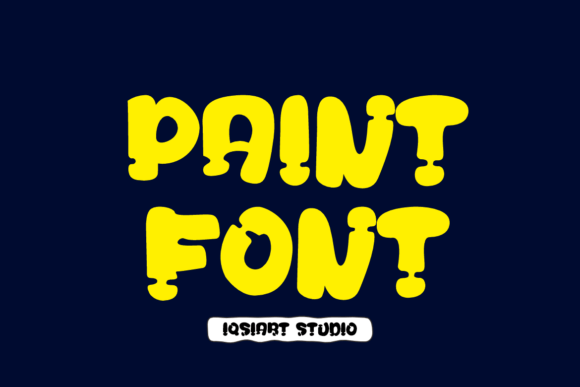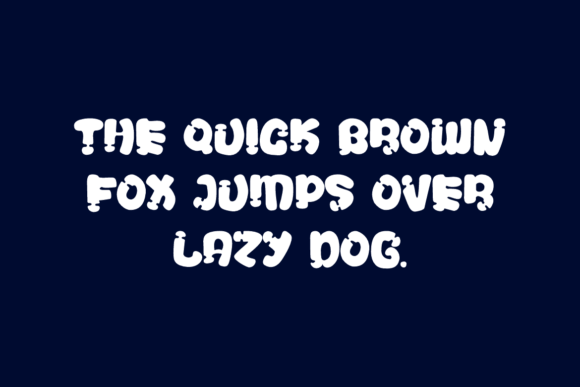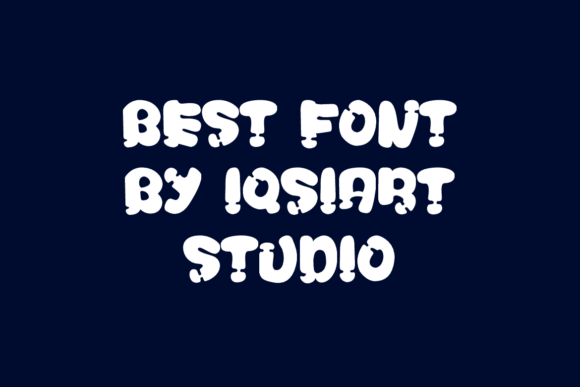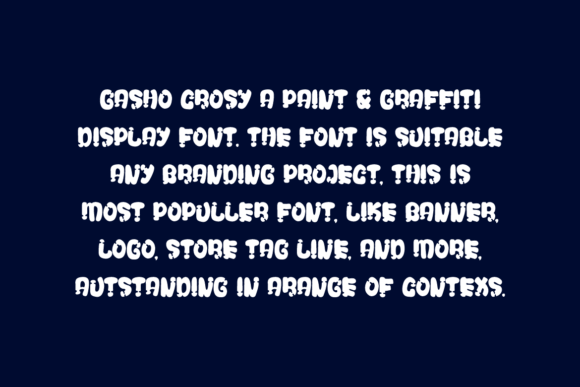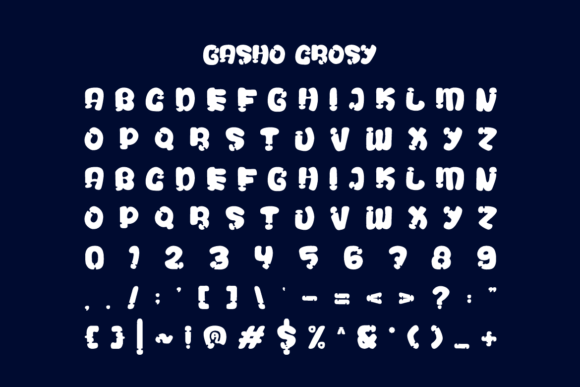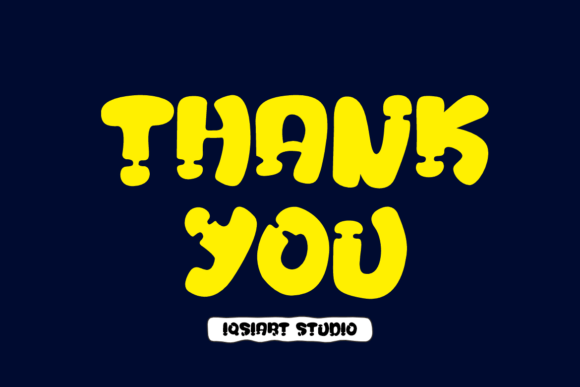
The Urban Edge: Unleashing the Power of Gasho Crosy Font
I’ll never forget the design project that pushed me to discover the Gasho Crosy Font. I was working on a streetwear branding campaign, and my client wanted a bold, eye-catching font that captured the raw energy of urban street art. After hours of searching, I stumbled upon Gasho Crosy, and it was love at first sight! ✨ With its chunky, paint-drip-inspired forms and playful curves, this font brought an instant impact to the design. In this article, I’ll share my experience with Gasho Crosy, its features, and how to make the most of it in your designs.
- ✨ Bold and attention-grabbing: Gasho Crosy is perfect for making a statement in streetwear branding, hip-hop event posters, and creative youth campaigns.
- ✅ Unique and authentic: The font’s urban attitude and modern twist make it stand out from more generic bold fonts.
- 💥 High-energy vibe: Gasho Crosy injects a burst of energy into any design, making it perfect for creative projects.
While Gasho Crosy is an amazing font, there are a few things to keep in mind: ⚠️ Legibility at small sizes: Due to its bold and chunky nature, Gasho Crosy may not be the best choice for body text or small font sizes. 🤔 Limited versatility: While the font is great for bold statements, it may not be suitable for more elegant or sophisticated designs.
The story behind Gasho Crosy is one of creative passion and urban inspiration. According to its designers, the font was born out of a love for street art and graffiti. They wanted to create a font that captured the raw energy and attitude of urban culture, while also being modern and fresh. The result is a font that’s both bold and beautiful, perfect for designers who want to add an edge to their work.
Q: What type of projects is Gasho Crosy best suited for?
A: Gasho Crosy is perfect for streetwear branding, hip-hop event posters, and creative youth campaigns.
Q: Can I use Gasho Crosy for body text?
A: While Gasho Crosy is a beautiful font, it’s not ideal for body text due to its bold and chunky nature. It’s best used for headings or titles.
Q: Does Gasho Crosy support OpenType features?
A: Yes, Gasho Crosy supports OpenType features, including Stylistic Alternates and Glyphs.